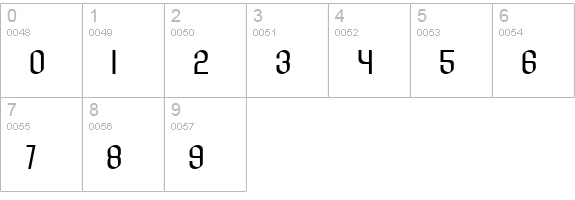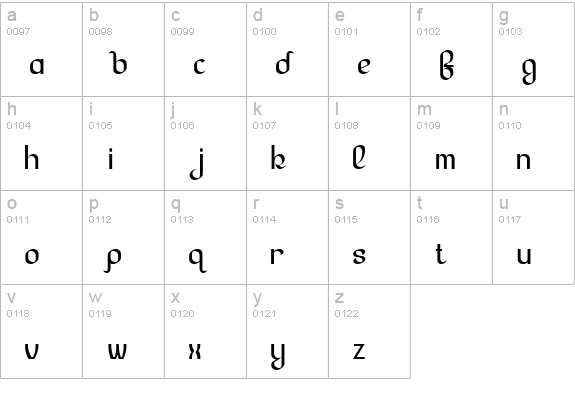
Lesser Concern Font Details
Introducing Lesser Concern, a captivating and versatile font that effortlessly combines elegance with a touch of playfulness. With its sleek lines and artistic curves, this font is perfect for adding a modern and sophisticated touch to any project. Lesser Concern is not only aesthetically pleasing, but also highly legible, making it suitable for a wide range of design purposes. Whether you're creating eye-catching logos, stunning headlines, or elegant invitations, this font will surely make a lasting impression. But what sets Lesser Concern apart is its accessibility - it is available for free download at FontsMarket.com. Yes, you read that right. This incredible font can be yours without any cost. FontsMarket.com offers an extensive collection of fonts, and Lesser Concern is one of their prized offerings. Downloading Lesser Concern is a breeze, and once it's in your possession, the creative possibilities are endless. Whether you're a professional designer or simply someone with a passion for beautiful typography, this font will become a valuable asset in your creative toolbox. So why wait? Experience the beauty and versatility of Lesser Concern today, and elevate your designs to new heights. Download it for free at FontsMarket.com and let your creativity soar.